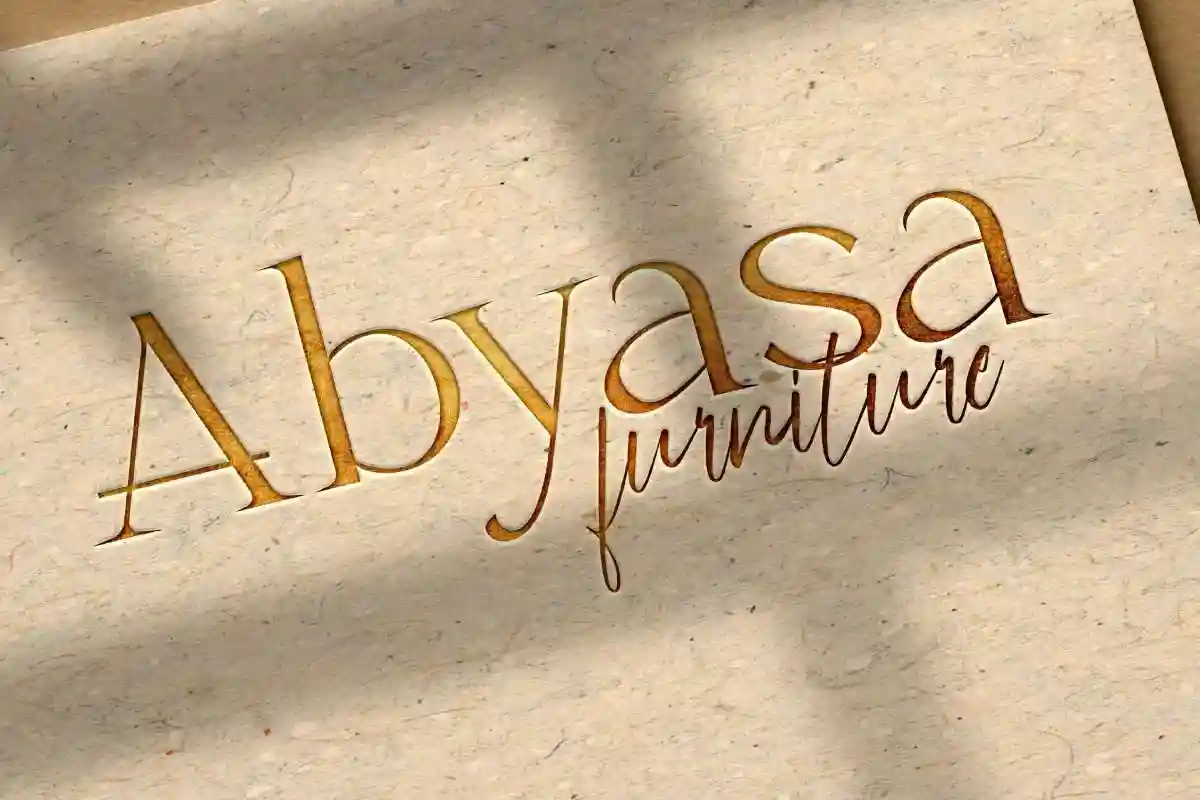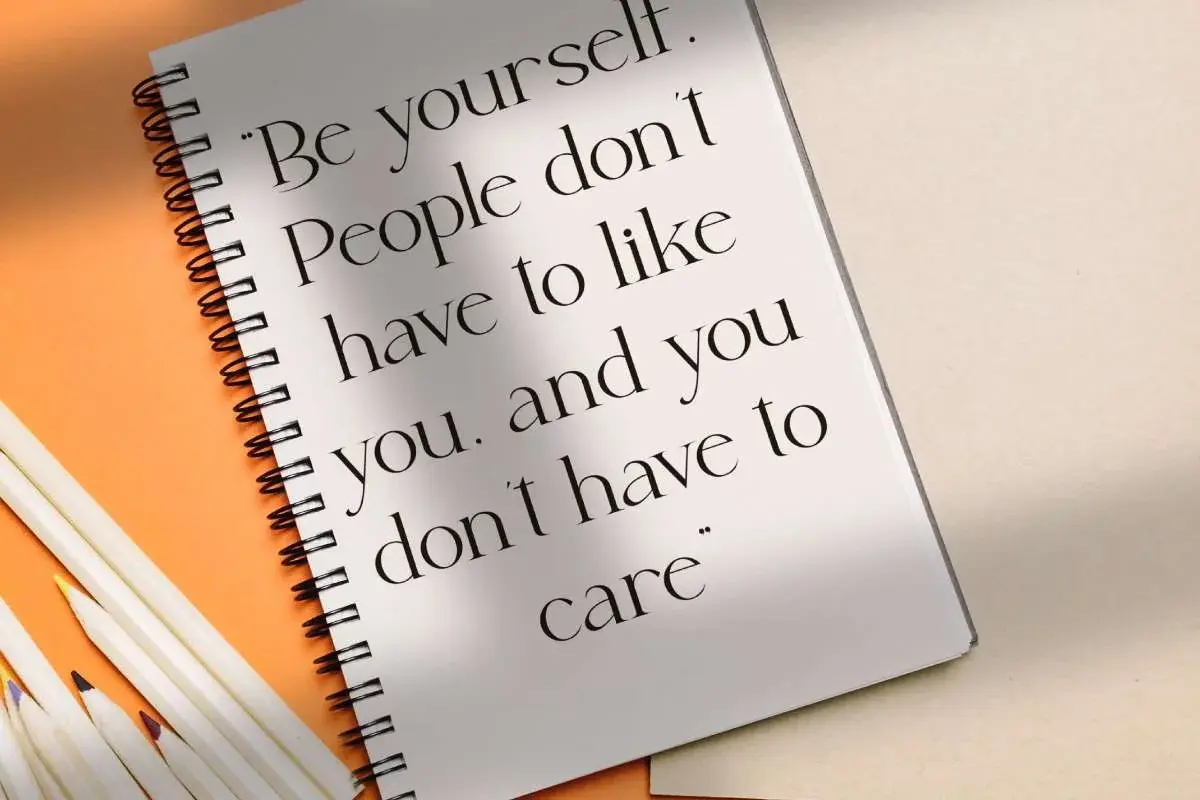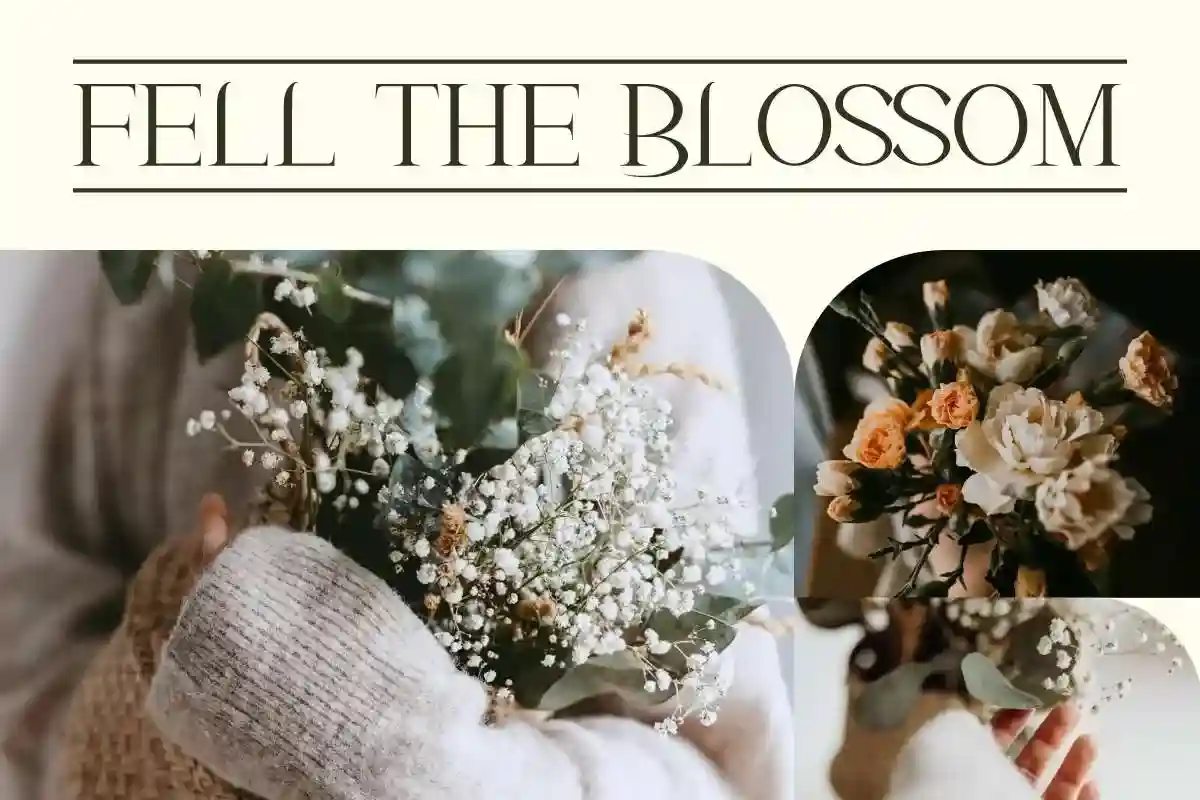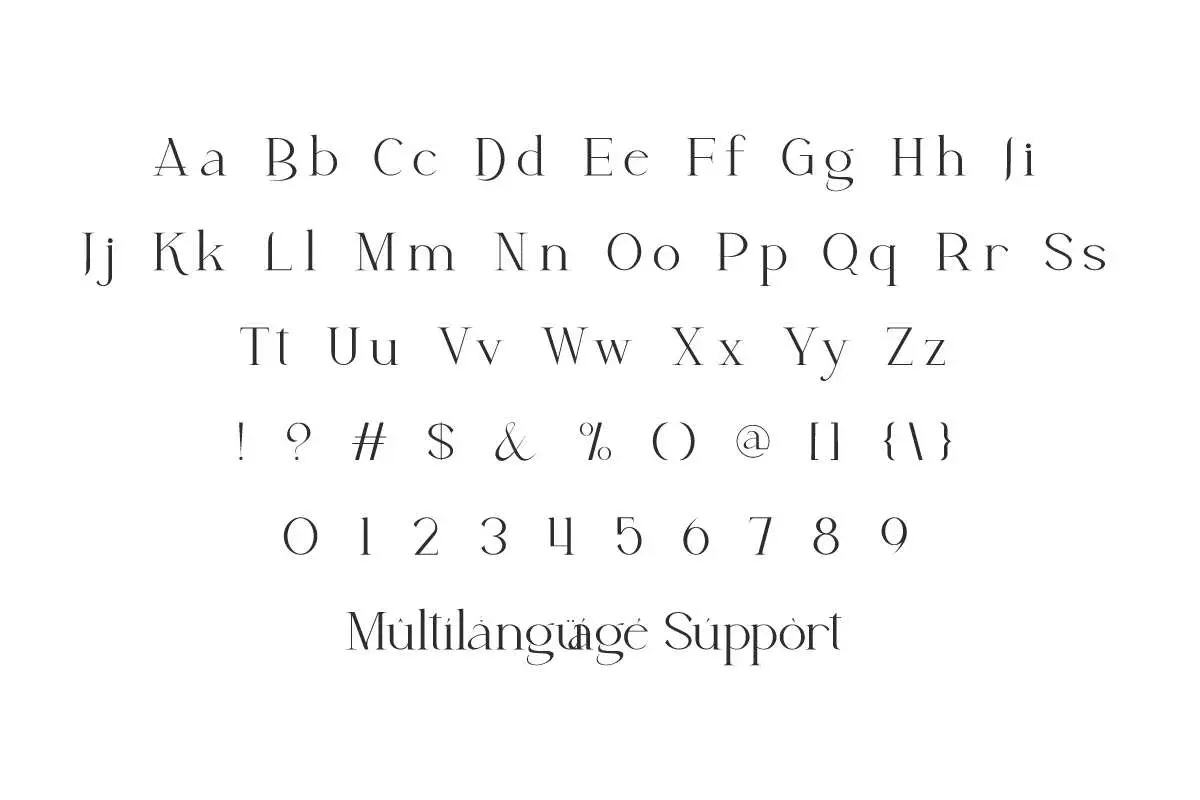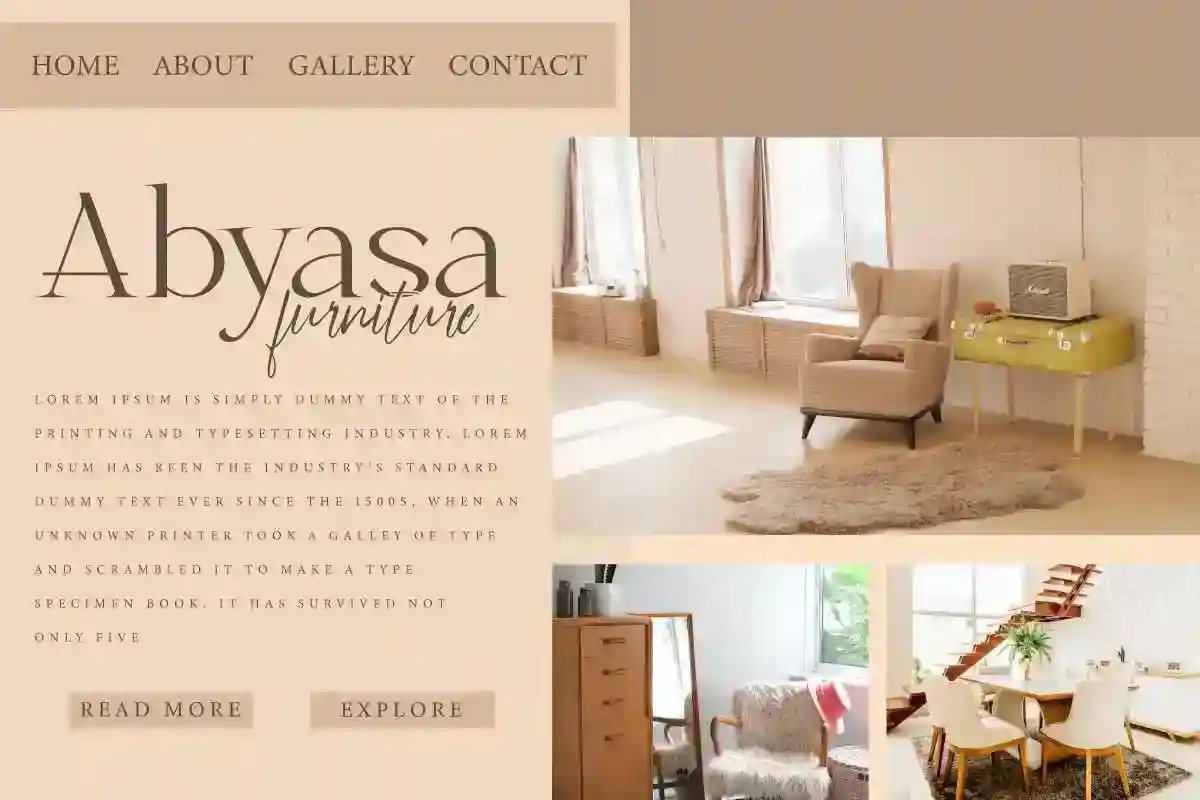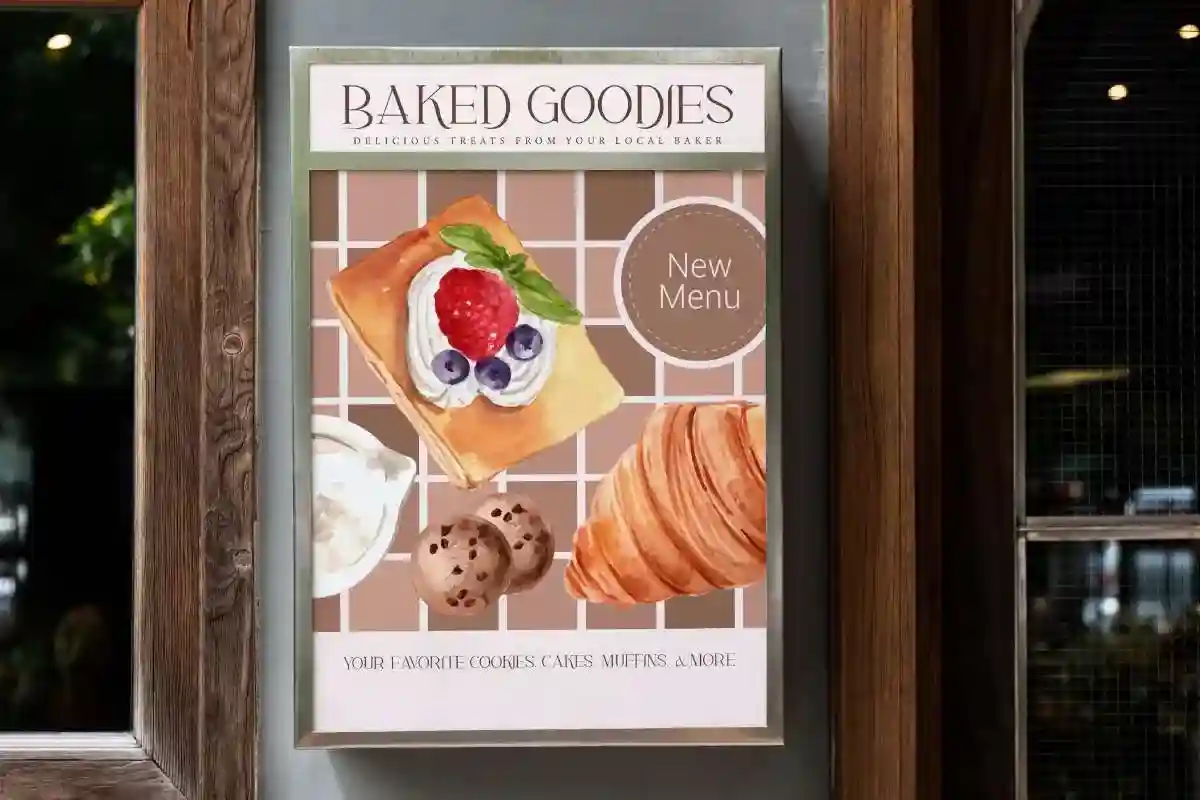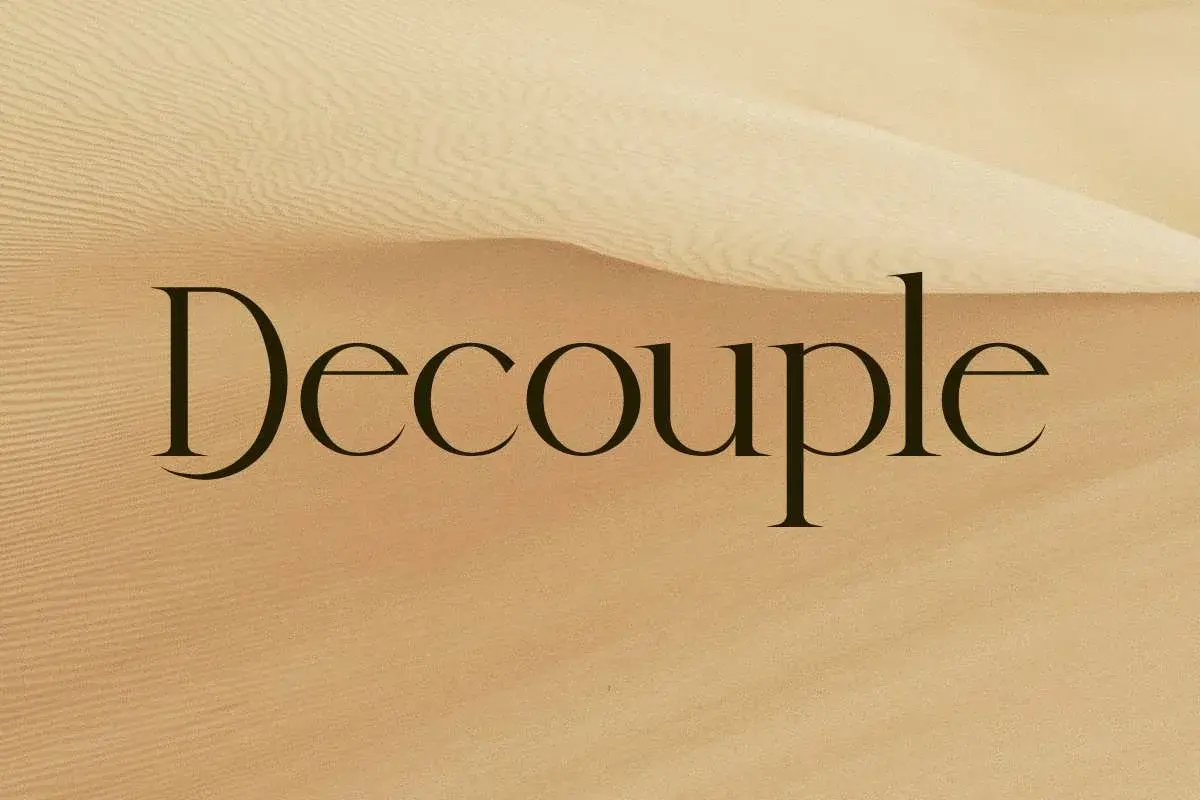
Decouple Font
Decouple Font is a classy minimalist serif display font with a modern look. This font will make clean and timeless styles, awesome for brands, marketing etc
Decouple Font is a classy minimalist serif display font with a modern look. It looks sophisticated so it will enhance your business, such as architect, bakery, boutique, café, construction, cosmetic, craftsman, event organizer, fashion, florist, furniture, interior design, jewelry, photography, printing, publishing, real estate, restaurant, skincare, spa salon, wedding, writer, etc.
Decouple Font includes full set of Uppercase and Lowercase Basic Characters, Number, Punctuation, and Symbol. It’s light appearance makes it show a classy side to your designs, such as apps, billboard, blogs, body text, brand logo, brochure, cover, flyer, header, invitation, label, mockup design, packaging design, poster, quote, screen print, signage, stationery, sticker, title, watermark, website, and much more.